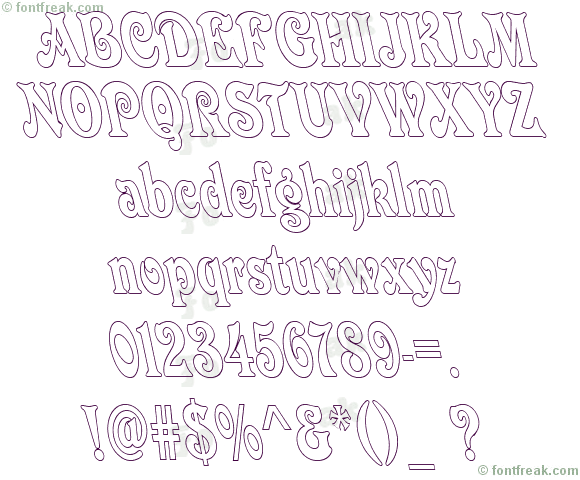
Quardi Bold Italic
Quardi, designed by Rafi, is a unique display font that captures attention with its bold and slightly italicized characteristics. This freeware typeface is perfect for those seeking a distinctive look in their projects. The Quardi font features a playful yet sophisticated design, characterized by pronounced stroke weight and a moderate contrast that adds depth without overwhelming the viewer. The spacing is thoughtfully executed, allowing for clarity and legibility even in larger sizes, making it an excellent choice for various applications.
This font shines in specific use cases such as wedding invitations, where its elegant yet modern style can create a memorable first impression. It is also ideal for movie posters, capable of conveying drama and excitement with its striking visual appeal. Additionally, Quardi works wonderfully for restaurant menus, giving a unique flair that can enhance the dining experience. Graphic designers will appreciate its versatility, while small business owners can utilize it for branding and marketing materials to stand out in a crowded marketplace.
The target audience for the Quardi font includes graphic designers, small business owners, and content creators looking to elevate their projects with a distinctive typeface. Its bold presence can help convey messages effectively, making it a valuable asset in various design contexts.
What sets the Quardi font apart is its ability to merge boldness with elegance, providing users with a versatile tool that can adapt to both modern and traditional aesthetics. Whether you are crafting a whimsical invitation or a professional branding piece, the Quardi font free download offers the perfect balance of style and functionality, ensuring your designs are both eye-catching and effective.